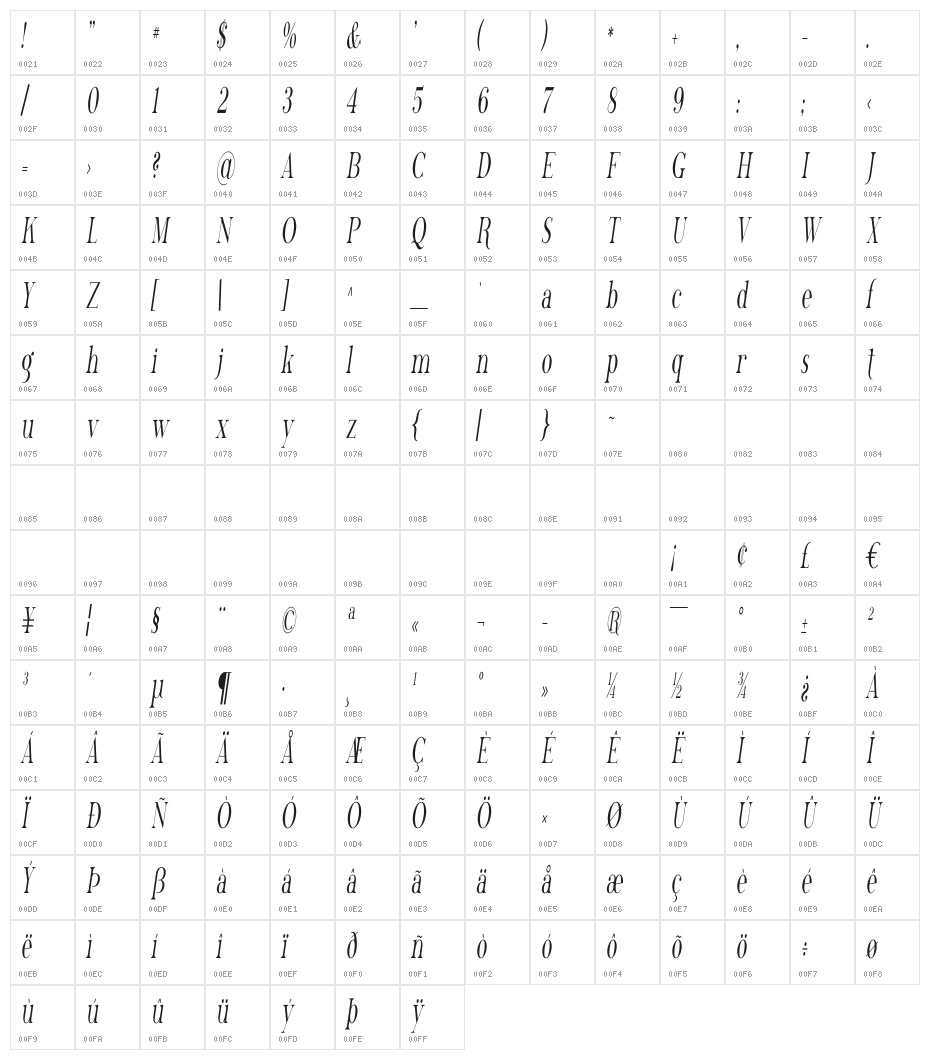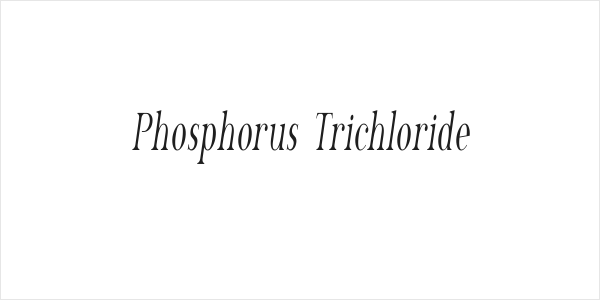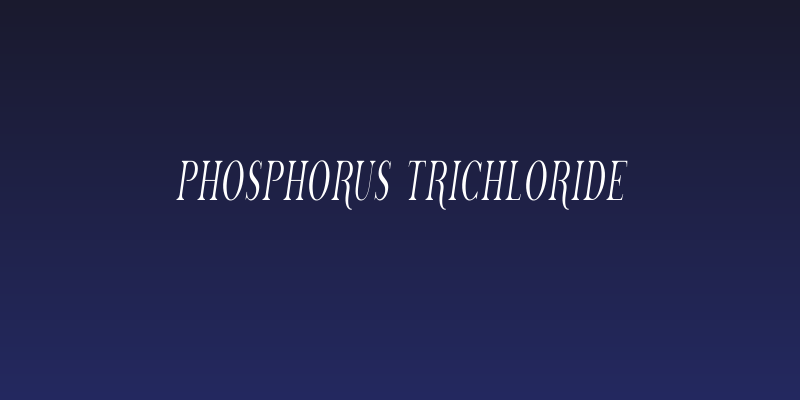
Phosphorus Trichloride Font
Phosphorus Trichloride Description
This font exudes a classic elegance with its high contrast between thick and thin strokes, characteristic of a Didone style. The serifs are fine and sharply defined, adding a sophisticated touch to each character. The uppercase letters are tall and commanding, while the lowercase letters maintain a graceful flow. The numerals are proportionate and align well with the overall style, ensuring readability. Special characters are crafted with the same attention to detail, making them suitable for formal and decorative purposes. The italic slant adds a dynamic feel, enhancing the font's versatility.
| Use Case | Headlines, Logos, Editorial design |
| Proposed Projects | Ideal for luxury branding, editorial design, wedding invitations, and high-end product packaging. |